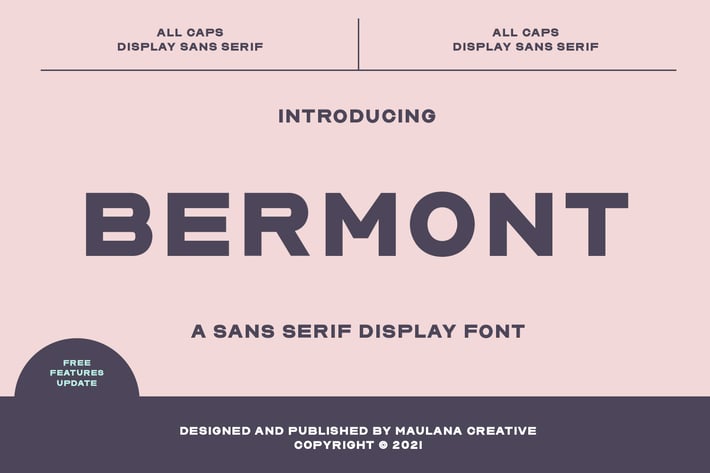
Bermont Sans Serif Display Font
BERMONT is an all caps display font. With bold weight, unique and fun character with a bit of ligatures. To give you an extra creative work. BERMONT font support multilingual more than 100+ language. This font is good for logo design, Social media, Movie Titles, Books Titles, a short text even a long text letter and good for your secondary text font with script. Make a stunning work with BERMONT font.